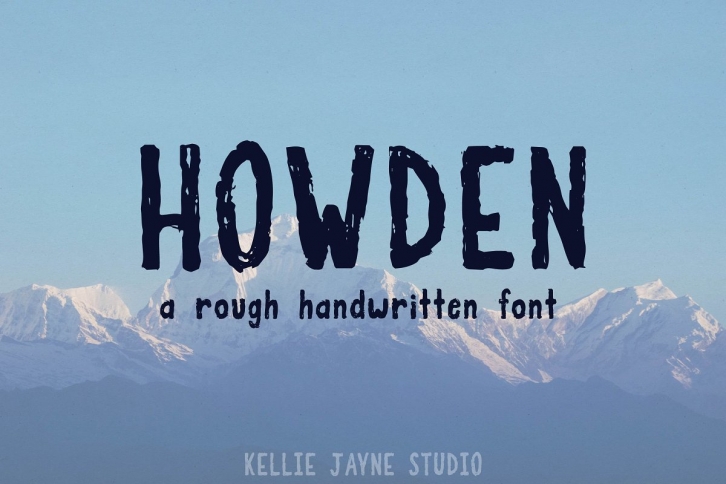
Howden is a rough but simple and readable font created by hand. It has just enough distressed texture while keeping its integrity.
Howden has multilingual support, numerical characters, and punctuation.